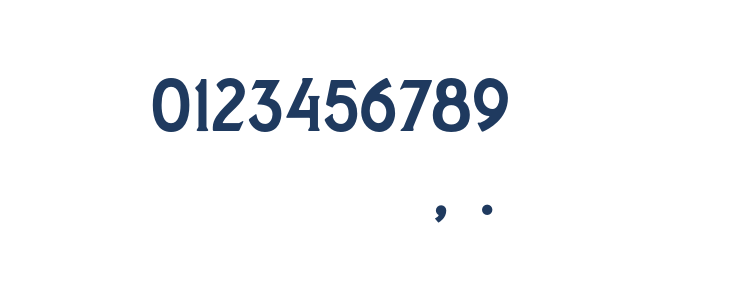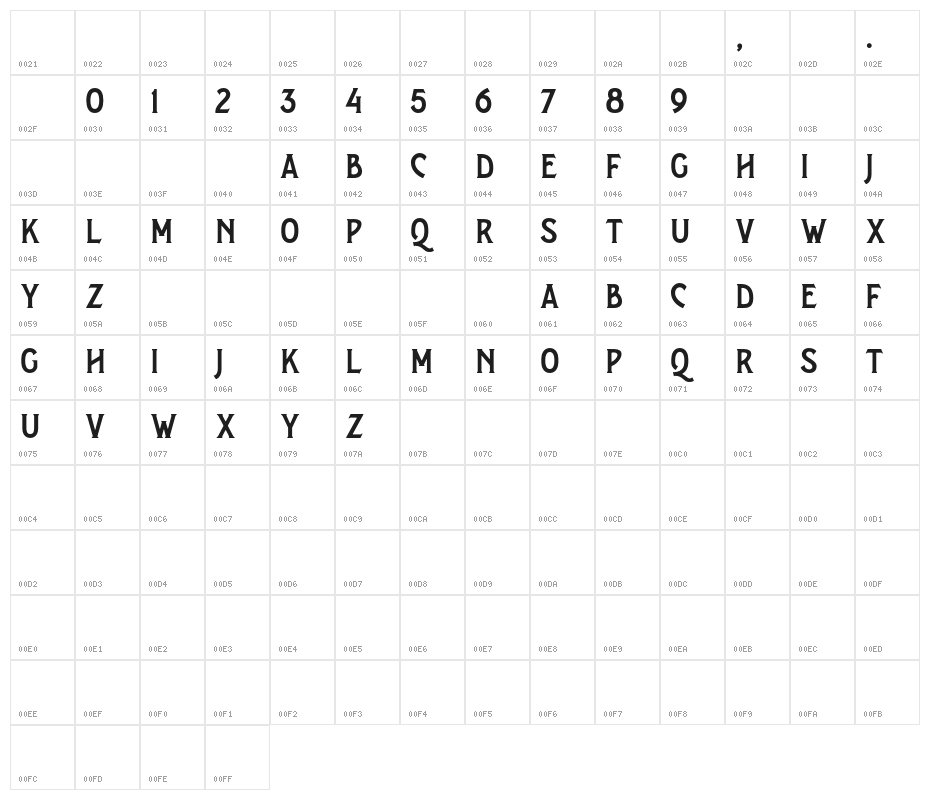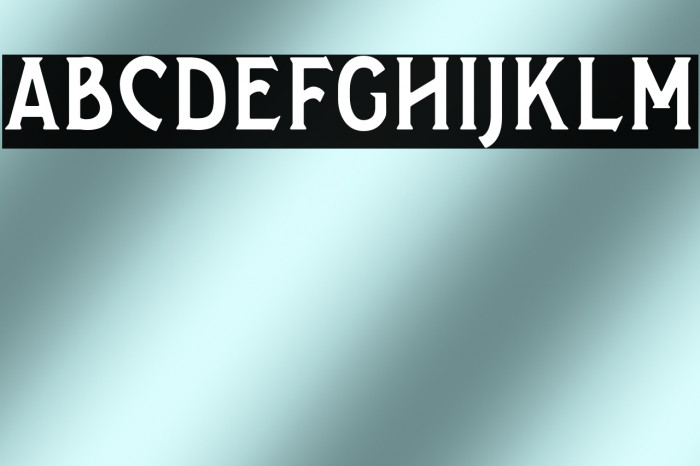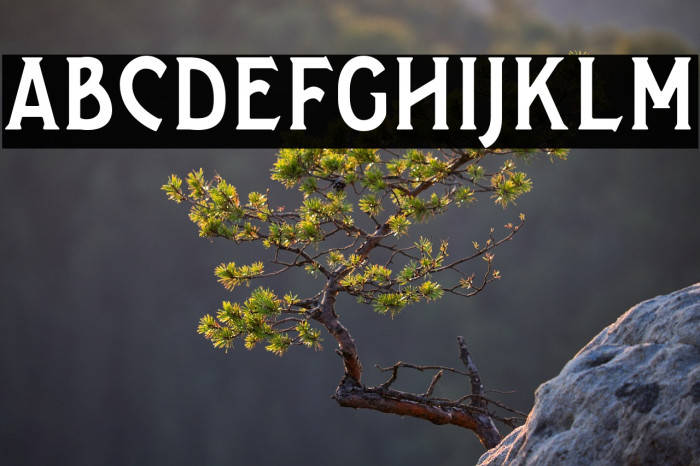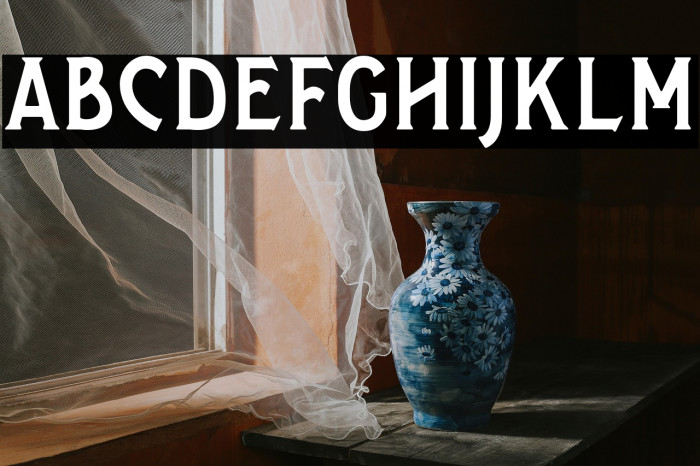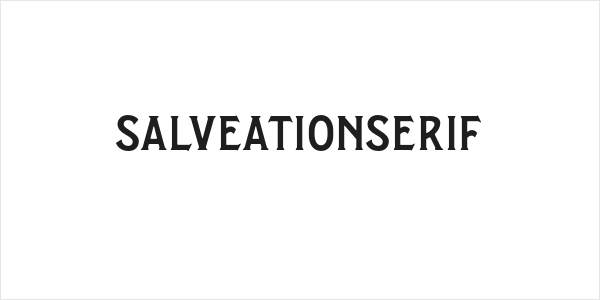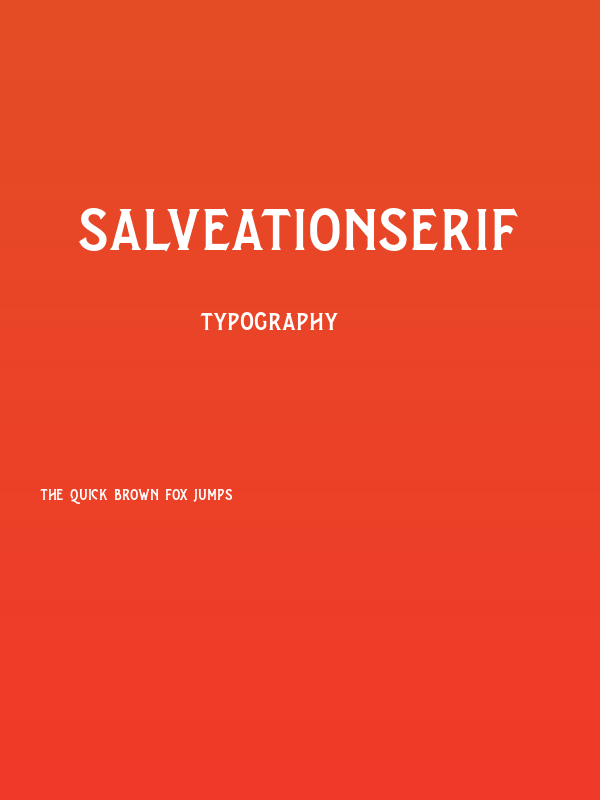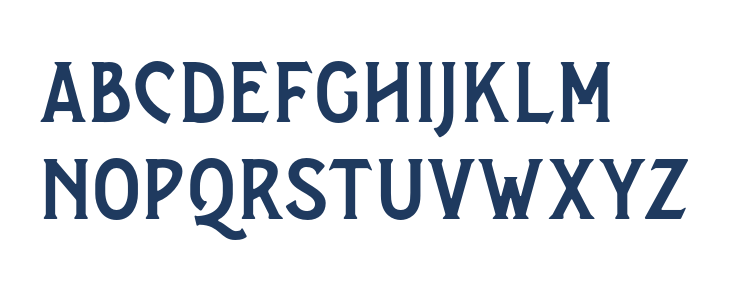
SalveationSerif Font
SalveationSerif Description
This font features a bold and striking serif style, characterized by its strong, angular serifs and a slightly condensed structure. The uppercase letters exhibit a classic yet modern aesthetic, with a distinct emphasis on vertical strokes. The numerals are robust and consistent, maintaining the overall boldness of the typeface. The font's design is well-suited for creating a sense of authority and elegance, making it ideal for headlines and titles. The spacing between characters is normal, ensuring readability while maintaining a compact appearance. The font's high contrast in stroke thickness adds to its visual impact, making it a versatile choice for various design projects.
| Use Case | Headlines, Titles, Branding |
| Proposed Projects | Perfect for editorial design, book covers, posters, and branding projects that require a classic yet modern serif typeface. |